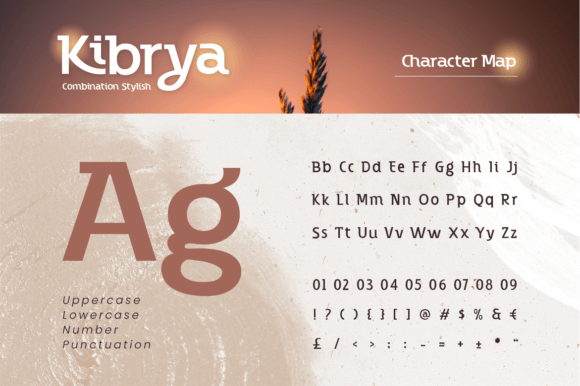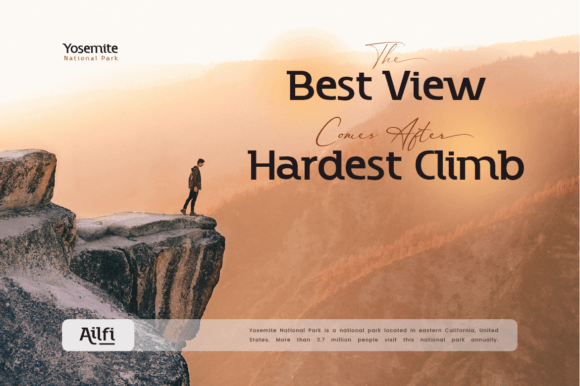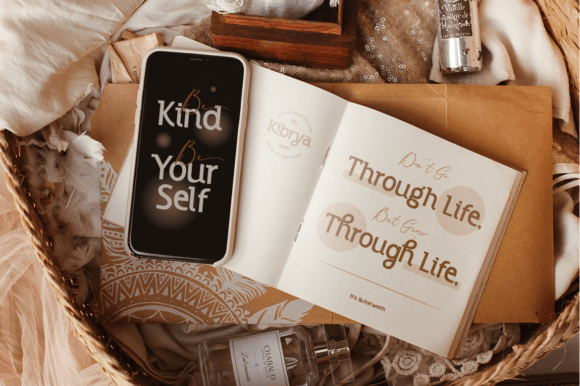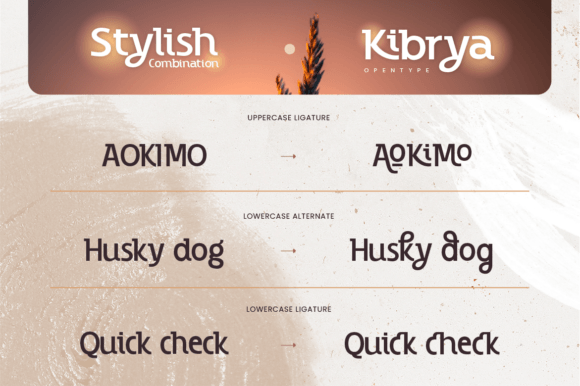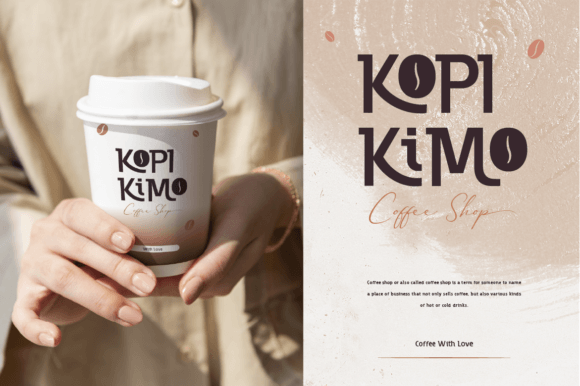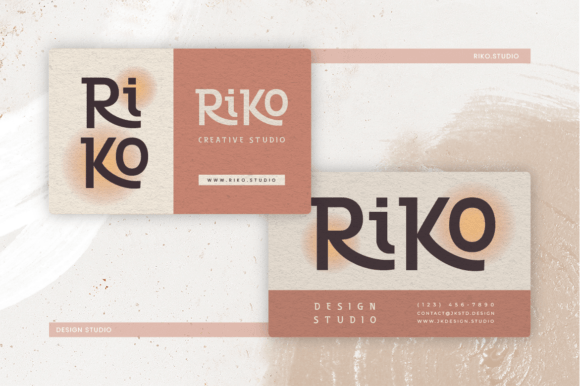
Introduction to Kibrya Font
Have you ever stared at a blank design canvas, wondering how to bring your creative vision to life? It’s a moment we’ve all experienced, and it’s precisely this feeling that the Kibrya Font aims to alleviate. As a designer, you’re constantly on the lookout for the perfect font to elevate your project and make it truly stand out.
The Kibrya Font is a game-changer in the world of design, offering a unique blend of classic and modern styles that’s sure to captivate your audience. With its transparent background and high-quality design, this font is a valuable resource for any creative project. Whether you’re working on a logo, poster, or social media graphic, the Kibrya Font is the perfect addition to take your design to the next level.
Key Features of Kibrya Font
- High-quality design resource with a unique, modern aesthetic, perfect for creative projects.
- Features a transparent background, allowing for versatility in design applications and a clean, minimalist look.
- Comes in a range of sizes, from 12pt to 72pt, catering to various design needs and requirements.
- Designed with a high resolution (300 DPI), ensuring crisp and clear text rendering in print and digital formats.
- Suitable for use in a variety of design contexts, including logos, branding materials, and digital graphics.
Honest Review: Kibrya Font
As a designer, I’m always on the lookout for high-quality design resources that can elevate my creative projects. Recently, I stumbled upon the Kibrya Font, and I must say, it’s a gem.
- ✨ The Kibrya Font has a unique, elegant design that’s perfect for creative projects requiring a touch of sophistication.
- ⚠️ The font may not be suitable for use in situations where a high level of readability is required, such as in body text or other areas where legibility is crucial.
- ⚠️ The font’s design may not be to everyone’s taste, so designers should use their discretion when deciding whether to use it in their projects.
Overall, I’m impressed with the Kibrya Font’s unique design and versatility. It’s a valuable addition to any designer’s toolkit, and I’d highly recommend it for creative projects where a touch of elegance is required.
Tips for Getting the Most Out of Kibrya Font
To get the most out of the Kibrya Font, use it in conjunction with other high-quality design resources, such as graphics and images. This will help to create a cohesive and visually appealing design. Additionally, experiment with different font sizes and styles to find the perfect fit for your project.